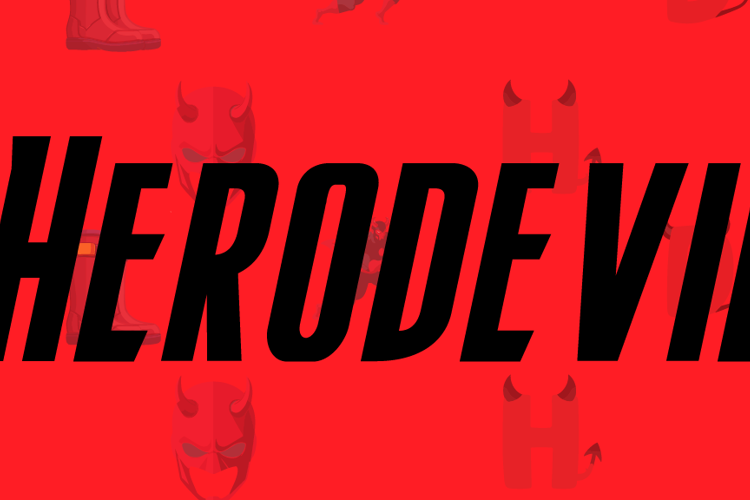
Herodevil Caps Font
EN - This typeface is unapologetically loud—a visual scream designed to arrest the eye immediately. It possesses a raw, masculine energy that straddles the line between modern industrial and rebellious street style. The heavy, monolithic weight of the uppercase lettering creates a commanding text block that refuses to be ignored. The sharp, angular terminations cut through the whitespace with precision, suggesting a sense of urgency and impact. This is not a typeface for subtle narratives; it is the typographic equivalent of a heavy bass line or a door slamming shut—perfect for high-octane headlines, esports branding, or album art that requires an intimidating presence.
PT - Esta tipografia é descaradamente impactante — um grito visual concebido para capturar o olhar imediatamente. Possui uma energia bruta e masculina que transita entre o estilo industrial moderno e a rebeldia urbana. O peso monolítico das letras maiúsculas cria um bloco de texto imponente que se recusa a ser ignorado. As terminações angulares e precisas cortam o espaço em branco, sugerindo uma sensação de urgência e impacto. Esta não é uma tipografia para narrativas sutis; é o equivalente tipográfico de uma linha de baixo pesada ou de uma porta batendo com força — perfeita para títulos impactantes, identidade visual de e-sports ou capas de álbuns que exigem uma presença intimidadora.